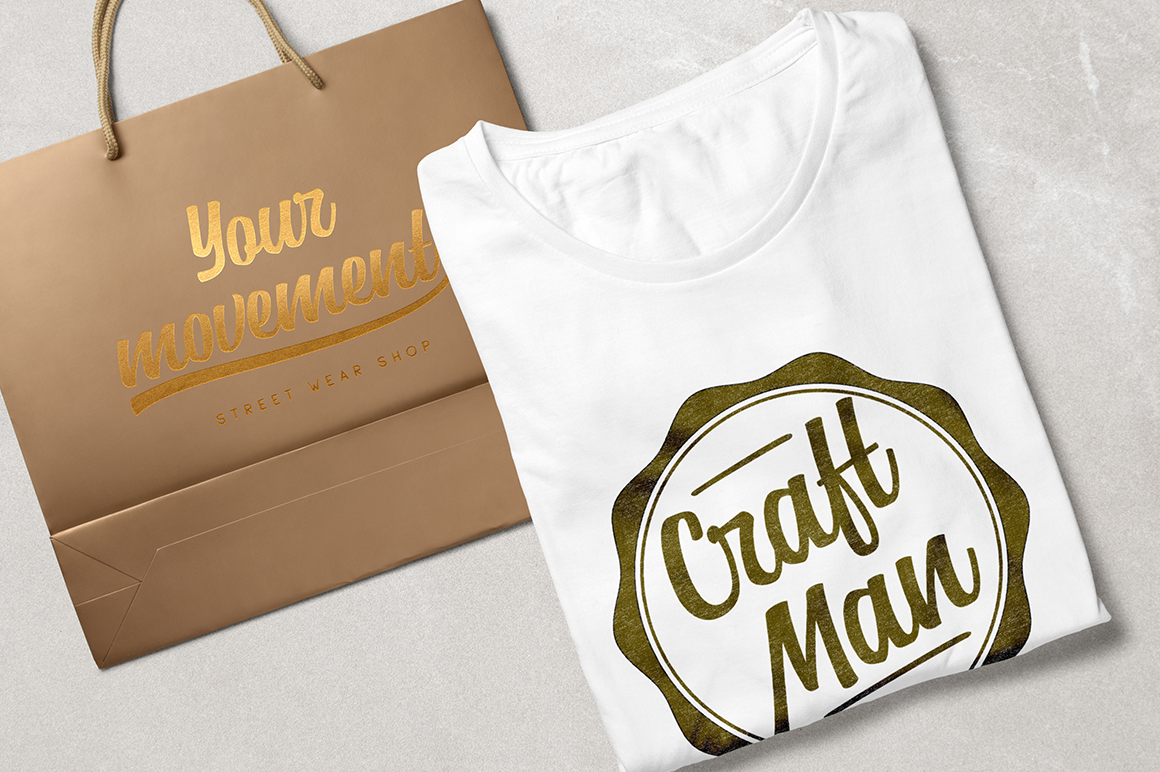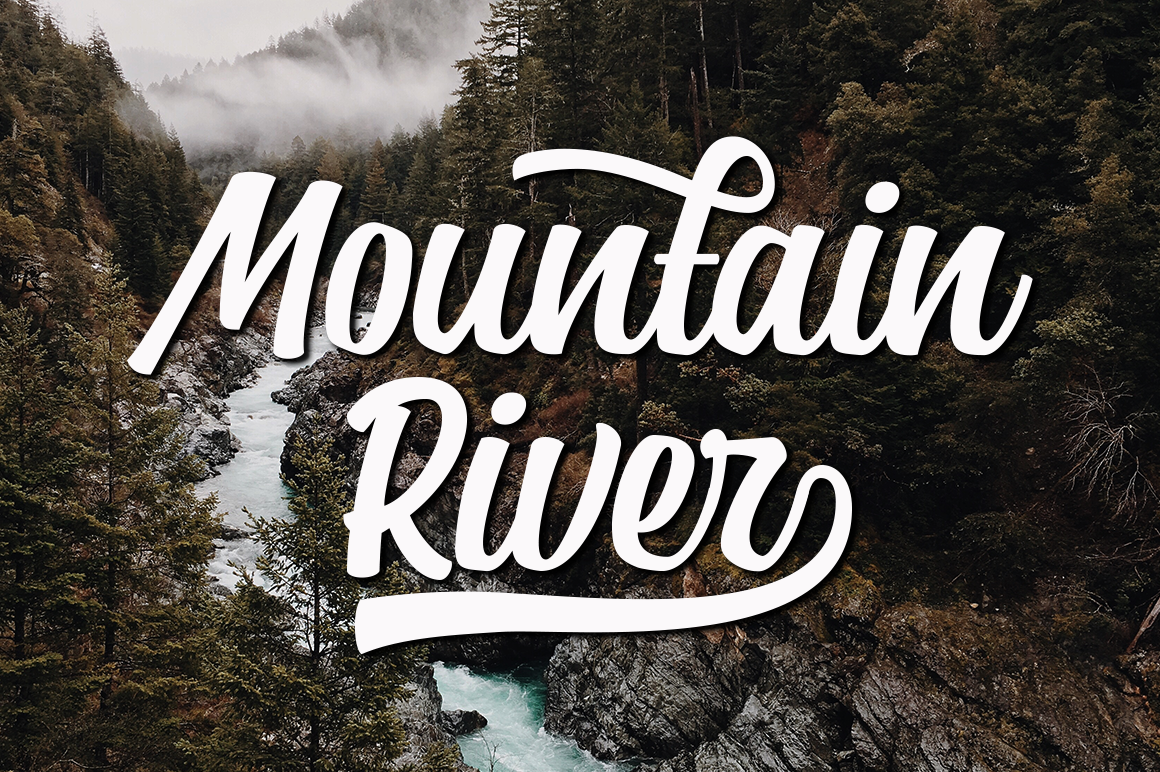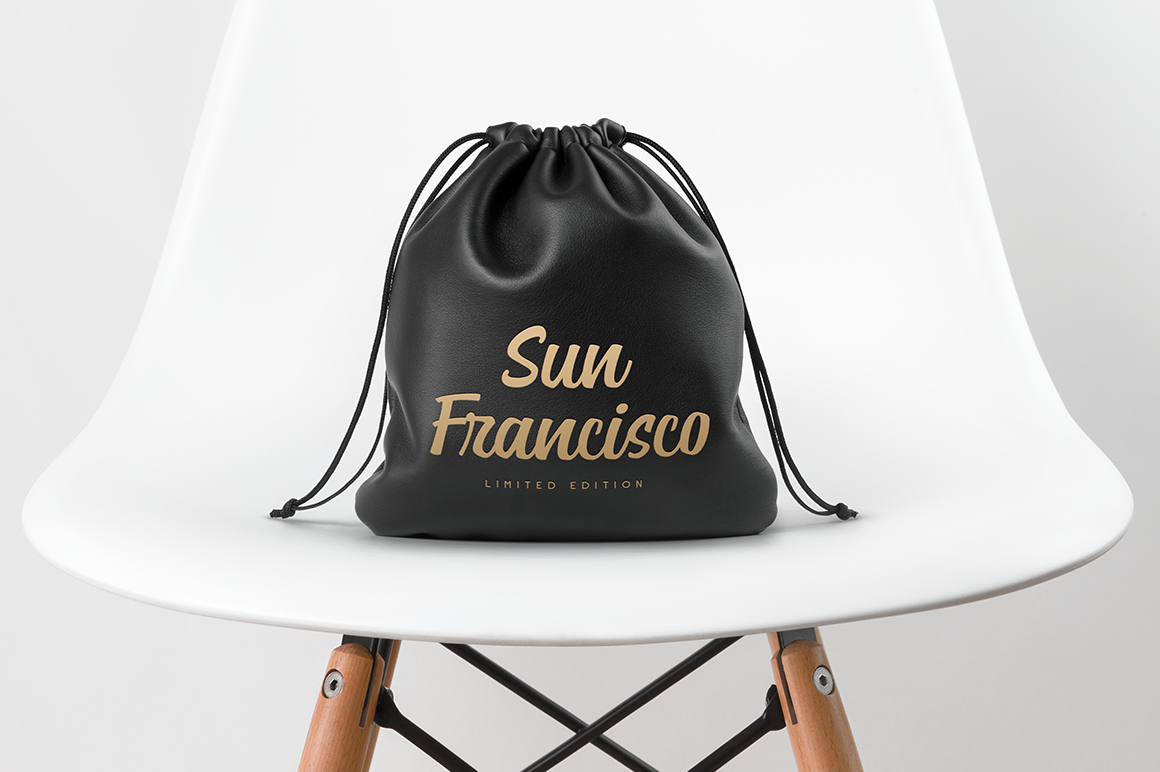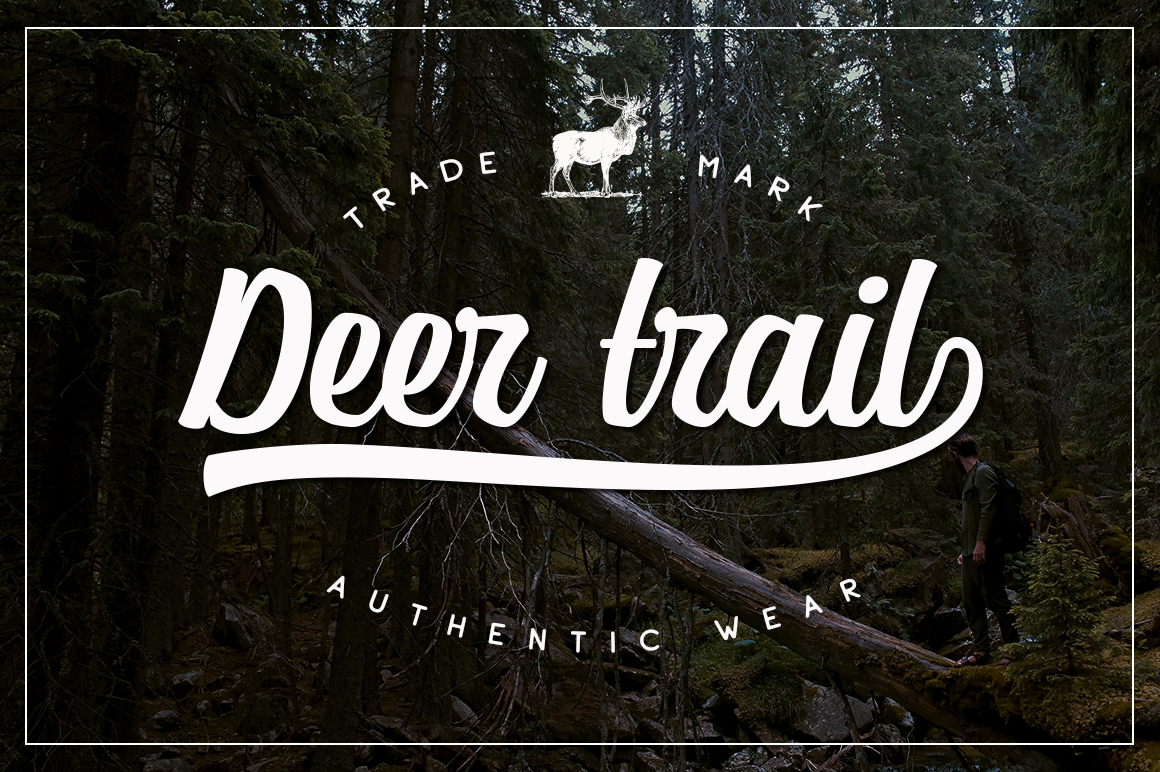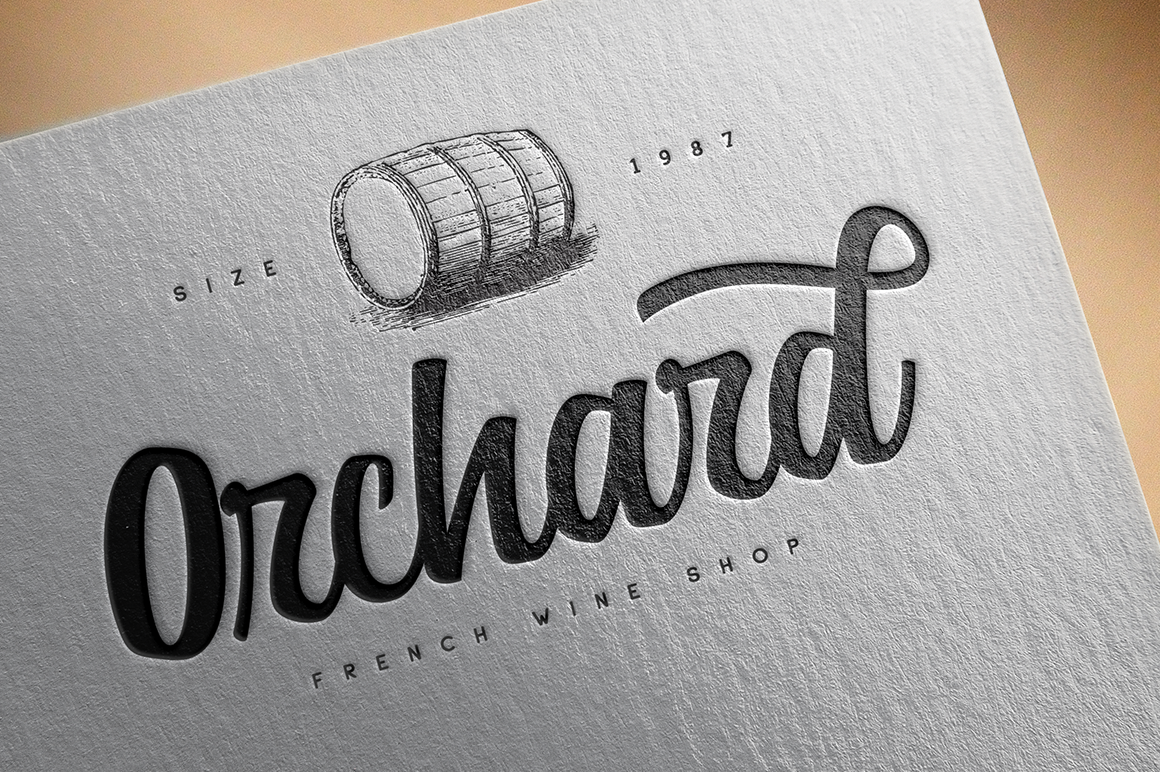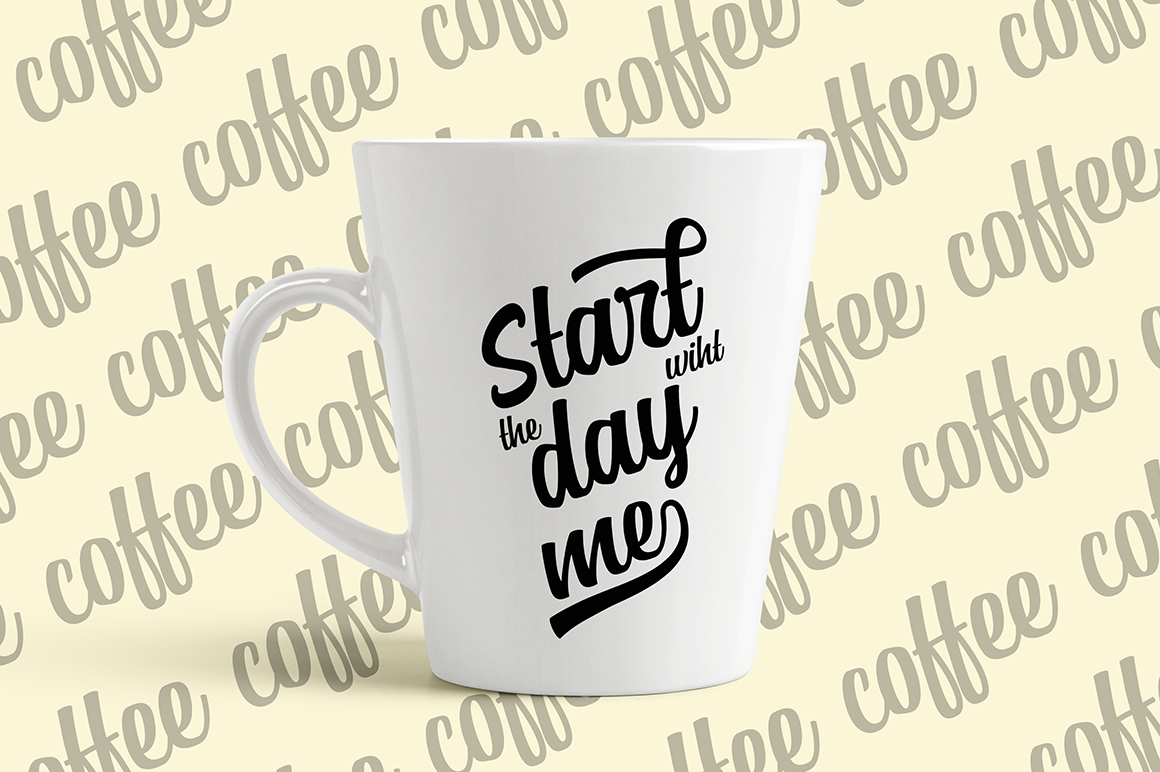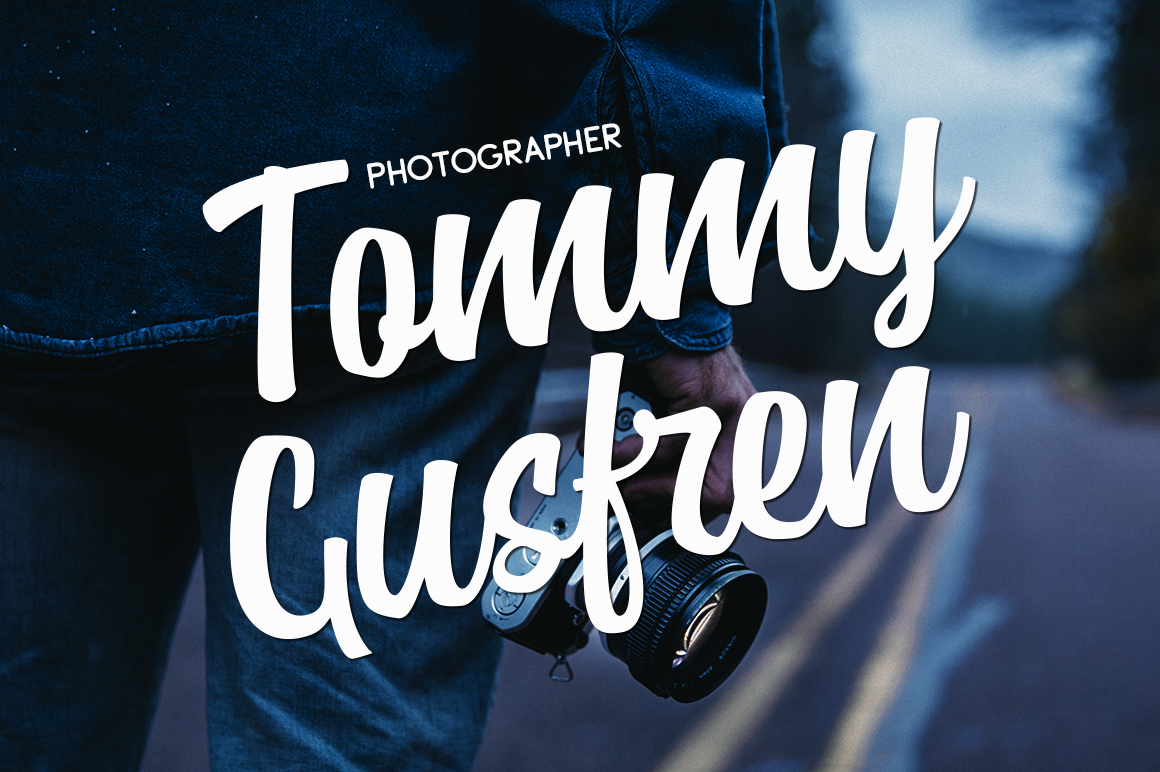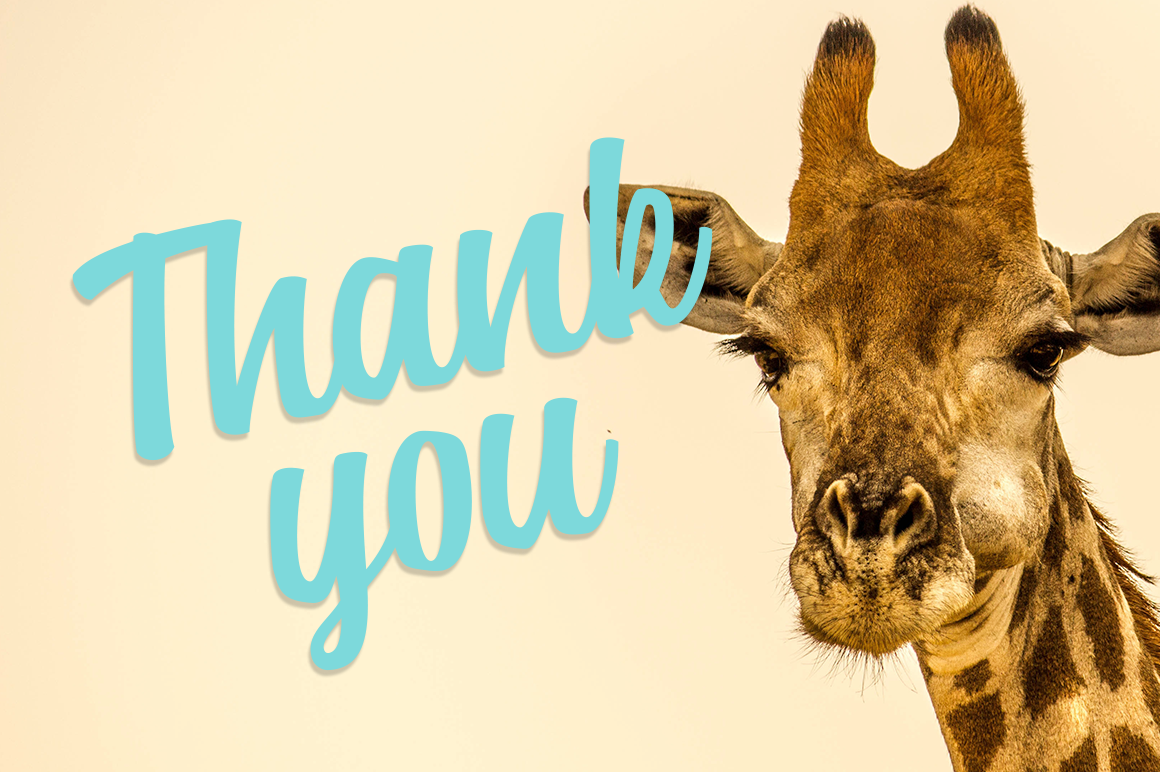
Hudson Font
About Hudson Font
Hudson is a hand-drawn font that draws it’s inspiration from nature.
It’s playful and modern and can be used in many different types of projects. It works great for branding and corporate designs as well as apparel.